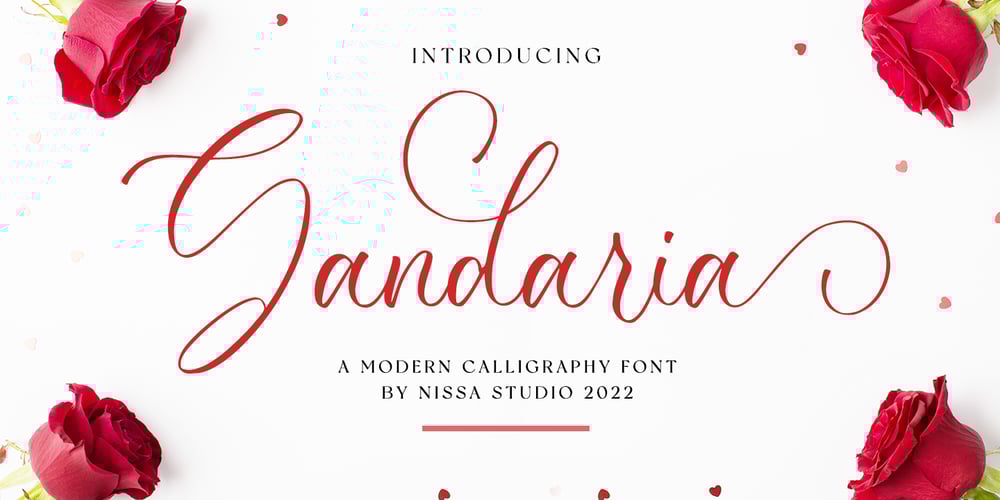
Gandaria
Gandaria font
Gandaria Font Family was designed by Novia Himatunnisa and published by Nissa Nana. Gandaria contains 1 styles and family package options. Gandaria is a lovely and delicate script font that exudes elegance and class. This font is perfect for those who need a beautiful and refreshing look to their designs.